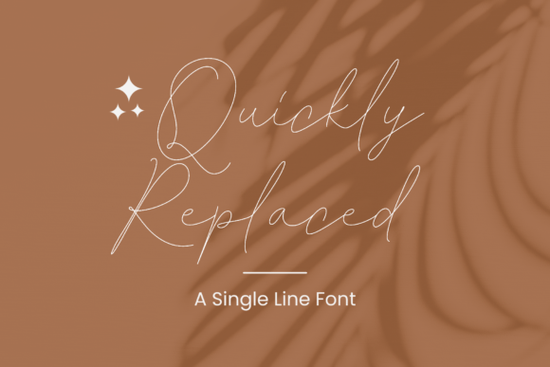
If you’ve been searching for a clean, minimalist single-line font that works especially well in Cricut Design Space, Quickly Replaced Font might be exactly what you need. It’s not flashy or overly decorative just sweet, simple, and surprisingly versatile. Whether you’re designing wedding invitations, branding small-batch products, or creating social media graphics with subtle charm, this font delivers without overwhelming your layout.
What makes it stand out? The single-line style means less ink, faster cutting on machines like the Cricut, and a modern look that pairs beautifully with photos or textured backgrounds. You don’t need to layer colors or fuss with complex outlines it’s designed to sit lightly above your design while still making an impression.
Who is this font best suited for?
If you run a small Etsy shop selling personalized mugs or tote bags, or if you’re a crafter who loves making vinyl decals for planners and journals, Quickly Replaced will feel right at home in your toolkit. Print-on-demand sellers also appreciate how cleanly it scales no pixelation or lost detail when resized for different products.
It’s also a favorite among designers working on packaging labels think artisanal candles, bath salts, or boutique tea blends. The simplicity reads well even at small sizes, which matters when you’re printing on curved surfaces or narrow tags.
How does it compare to other script fonts?
While many script fonts lean into flourishes and dramatic swashes, Quickly Replaced keeps things minimal. If you’ve tried fonts like Bridger Signature or Melody Tunes and found them too ornate for your current project, this one offers a quieter alternative. It’s more functional than decorative, which can be exactly what you need when clarity matters more than flair.
Can I really use this in Cricut Design Space without issues?
Yes and that’s one of its biggest strengths. Many single-line fonts require workarounds or third-party plugins to function properly in Cricut software. Quickly Replaced is built to work smoothly from the start. Just upload, type your text, and you’re ready to cut. No converting paths, no extra steps. This saves time whether you’re making one custom gift or batch-producing 50 holiday ornaments.
What kinds of projects have people made with it?
- Wedding signage Table numbers, seating charts, and welcome signs with a light, airy feel.
- Product labels Coffee bags, honey jars, soap bars anything where you want the text to feel personal but not overpowering.
- Social media quote graphics Overlaying soft script on nature photos or pastel backgrounds creates a calming aesthetic.
- DIY planner stickers Single-line fonts are perfect for tiny die-cut shapes because they use less material and cut faster.
Is there a learning curve?
Not really. If you’ve used any TrueType or OpenType font before, installing and applying Quickly Replaced will feel familiar. The only adjustment is getting used to how minimal it looks compared to bolder scripts. Sometimes less really is more especially when your background has texture, pattern, or color gradients.
Before you start your next project, here’s a quick checklist:
- Test print or cut a sample first Especially if scaling up or down dramatically.
- Pair it with a clean sans-serif For contrast in multi-text layouts (like ingredient lists or event details).
- Use negative space wisely Let the font breathe. Crowding it defeats the purpose of its delicate style.
Fonts like this remind us that sometimes the quietest tools make the biggest impact. If you’re tired of wrestling with complicated scripts or fonts that look great on screen but fail on vinyl, give Quickly Replaced a try. It’s the kind of font you’ll come back to again and again not because it shouts, but because it just works.